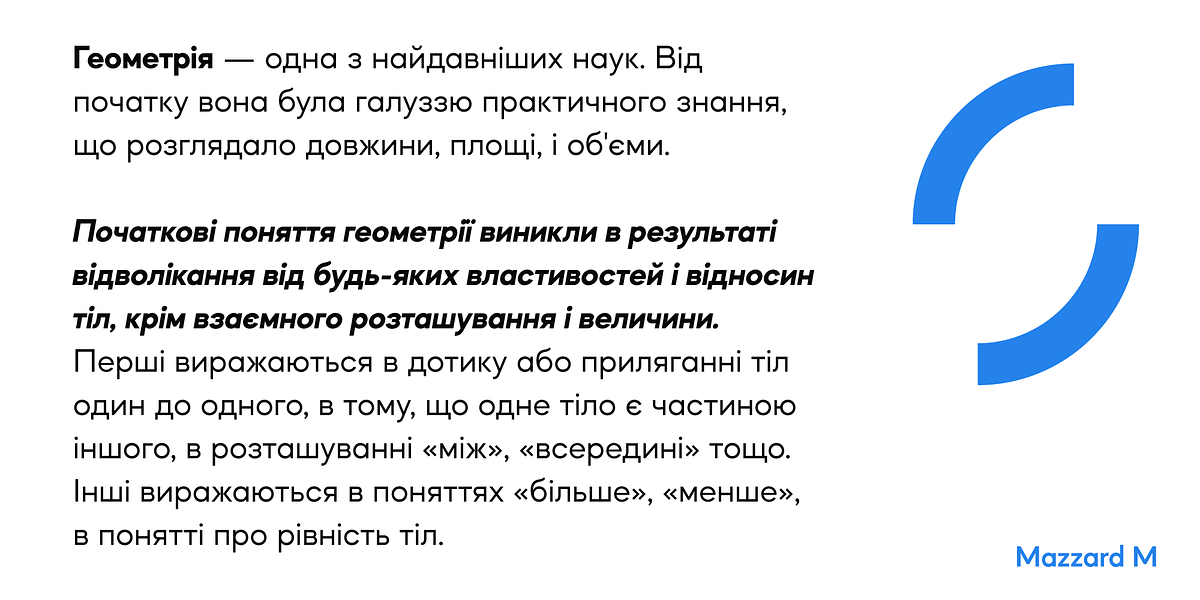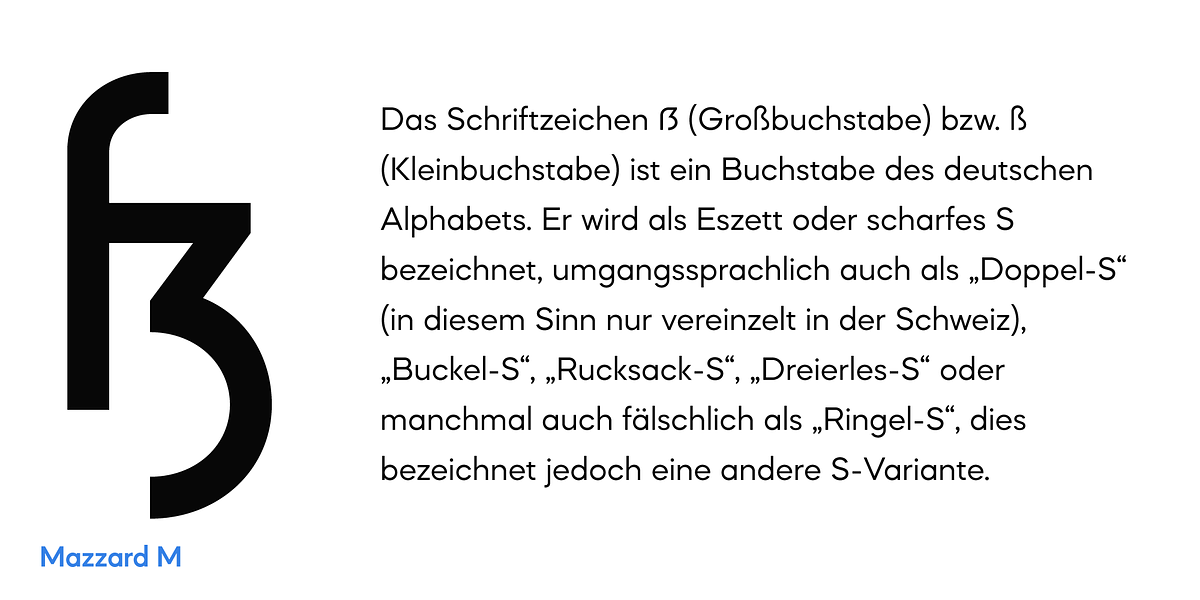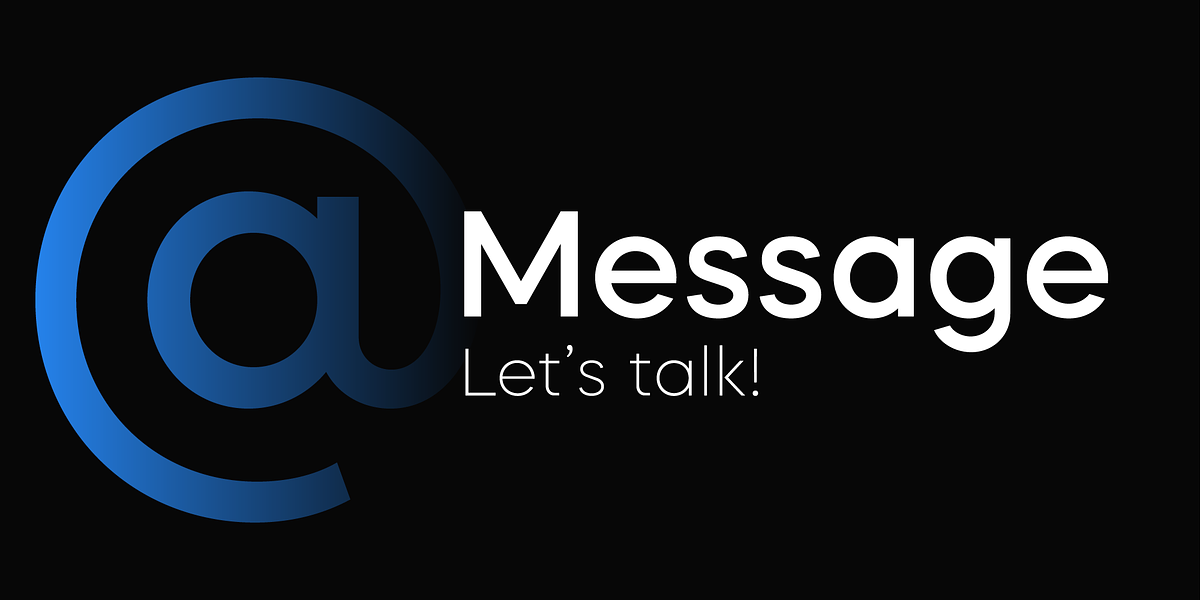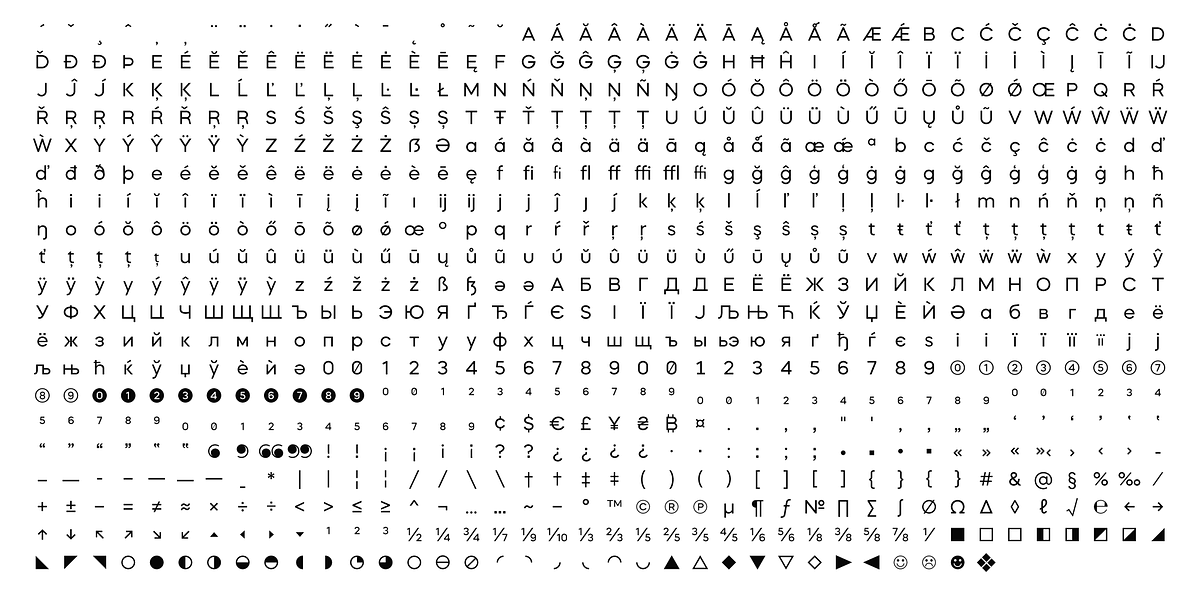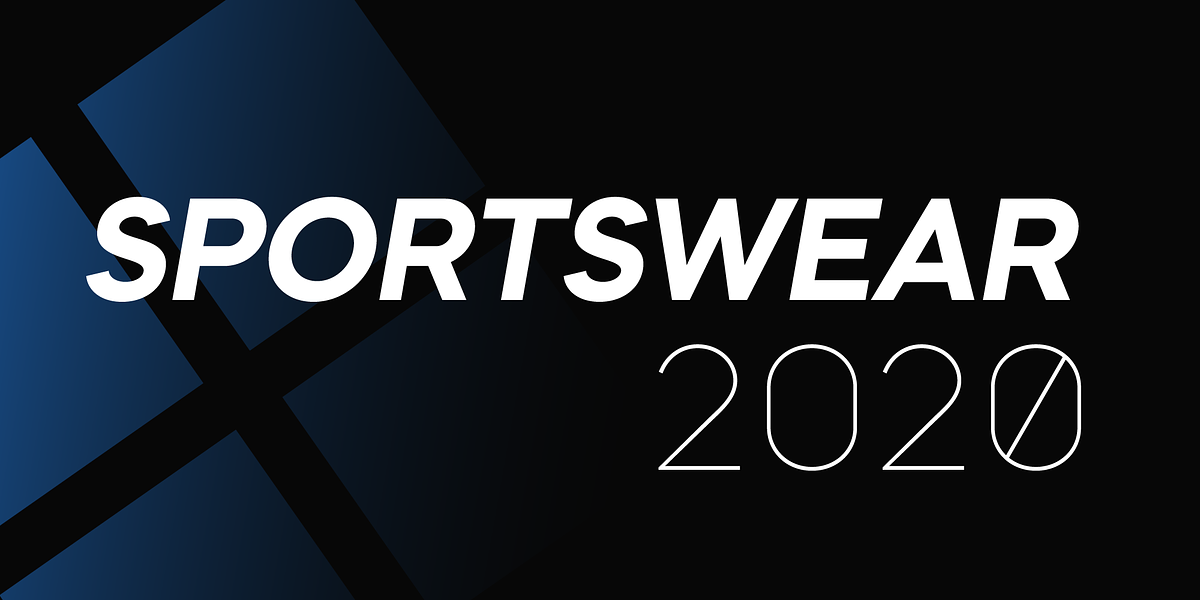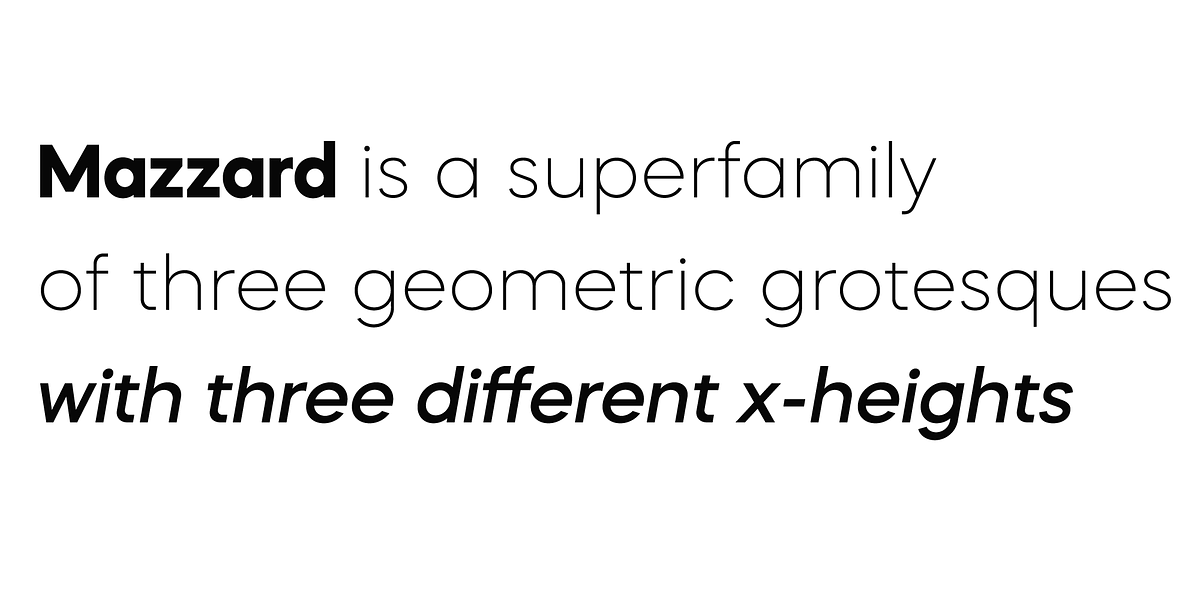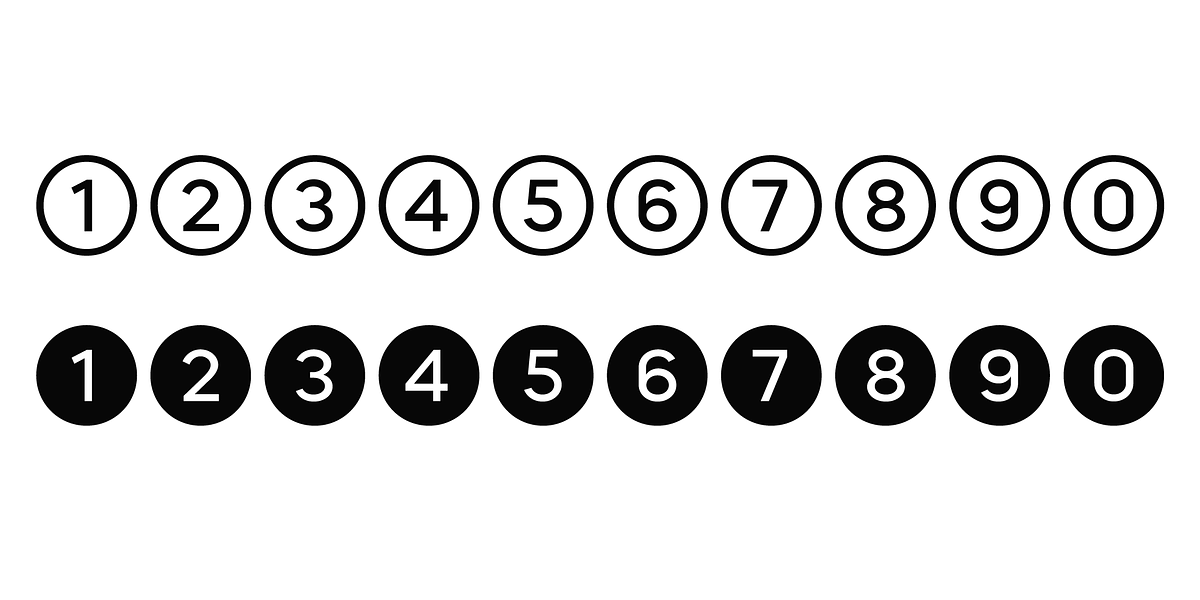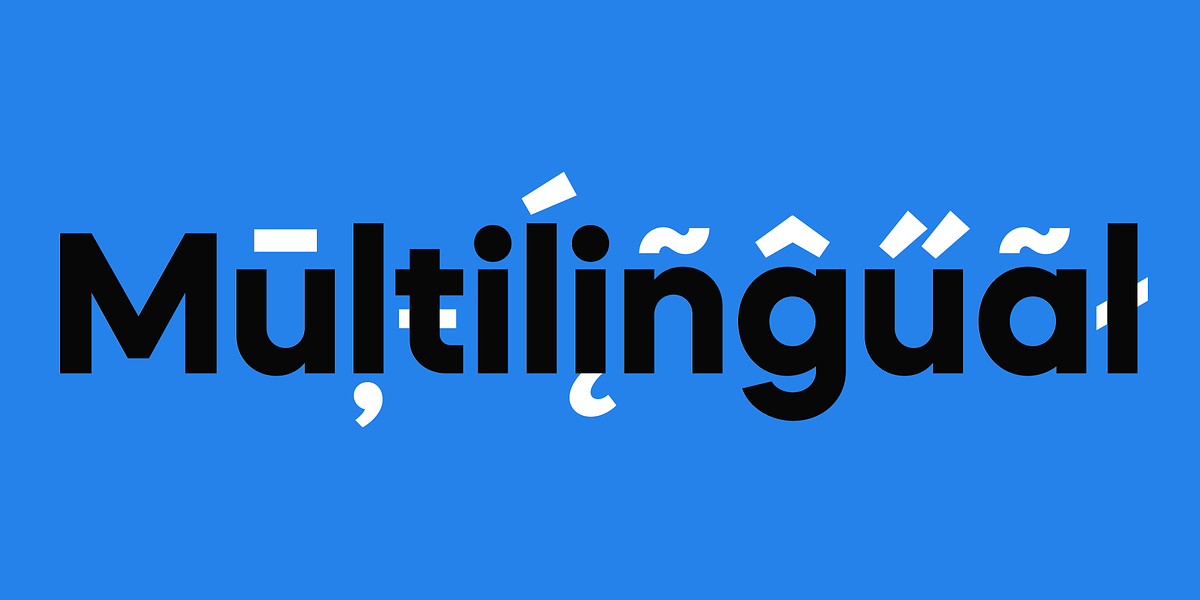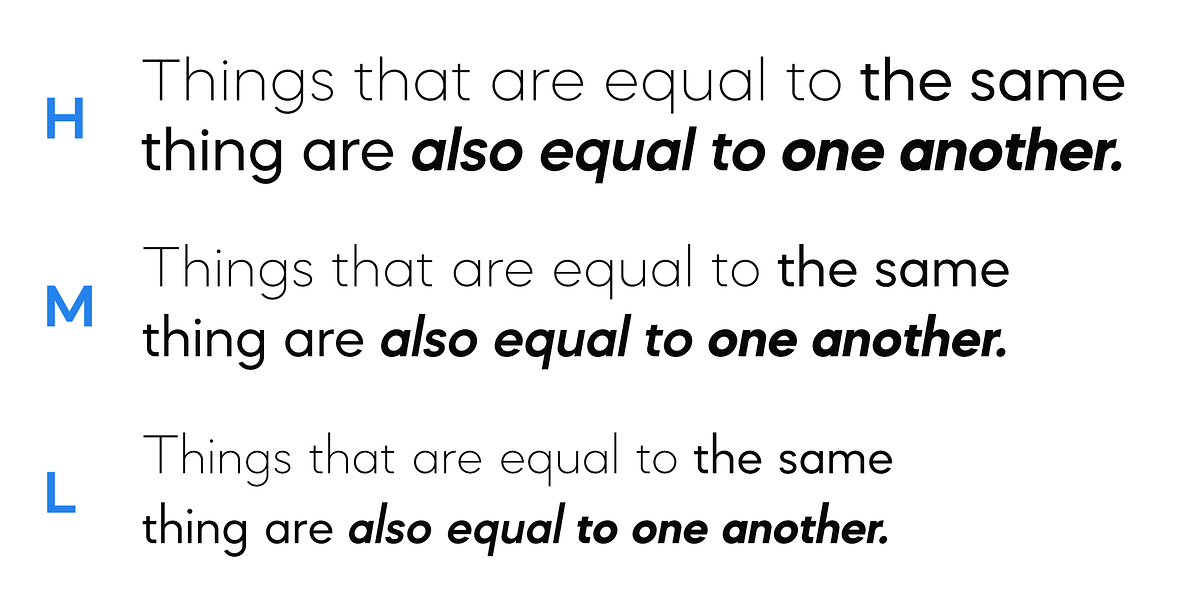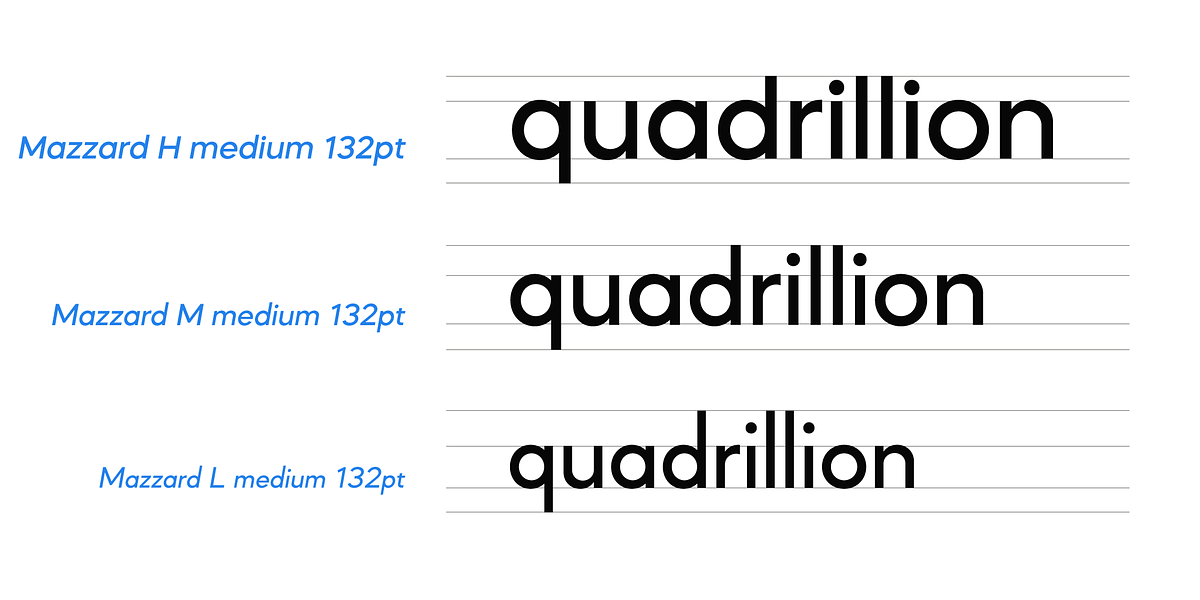
Mazzard M
Mazzard is a comprehensive sans-serif typeface family characterized by its geometric forms. It offers three distinct x-heights, providing flexibility for various design applications. The font boasts extensive language support, including Cyrillic characters. Additionally, Mazzard features a wide range of alternate character forms, allowing designers to customize and refine their typography.